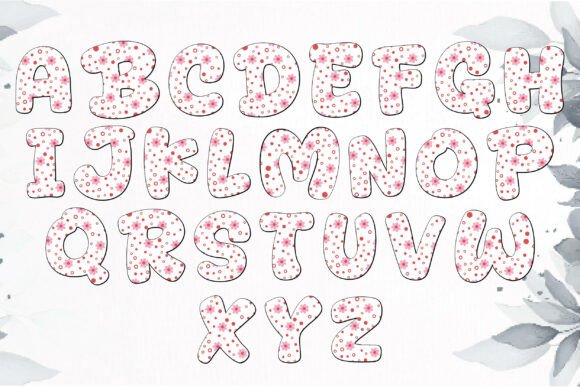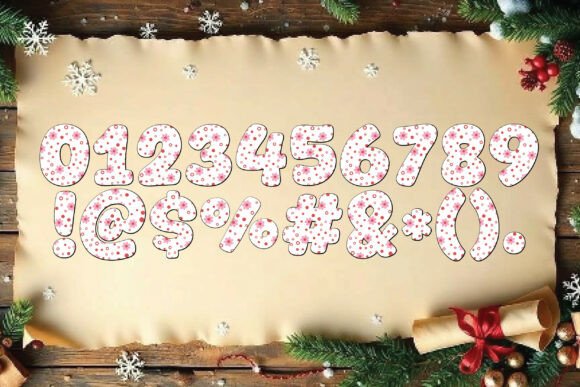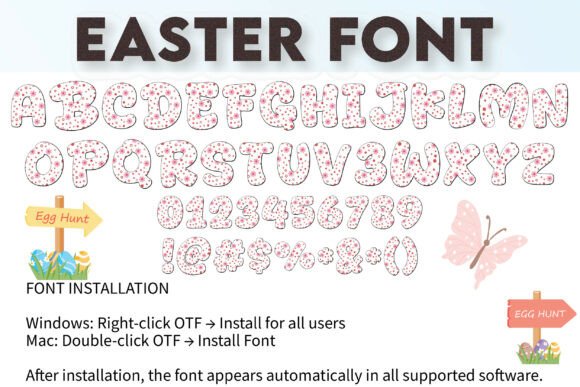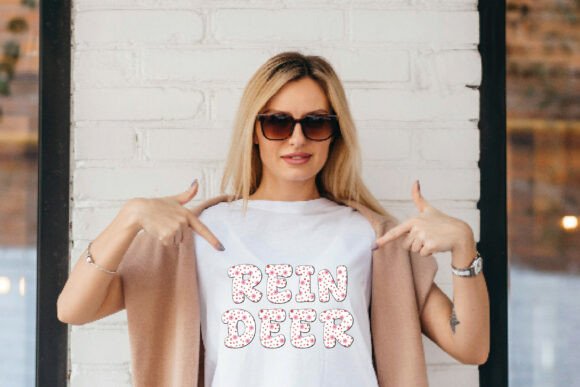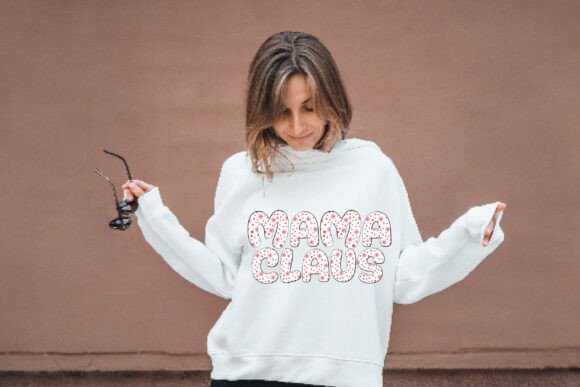
Hop into Spring with Easter Font: A Fun and Festive Alphabet
Ah, Easter – a time of renewal, colorful eggs, and adorable bunnies. As designers, crafters, and creative hobbyists, we’re always on the lookout for the perfect font to bring our seasonal projects to life. I still remember the time I was working on an Easter-themed invitation for a client, and I just couldn’t find the right font to match the playful and cheerful vibe. That’s when I stumbled upon the Easter Font, and it instantly became my go-to for all things spring and Easter.
So, what makes the Easter Font so special? Here are a few things that I absolutely adore:
- ✨ Cute and friendly letter style: The Easter Font is designed to be playful and fun, making it perfect for Easter celebrations, kids’ designs, and colorful spring creations.
- 🎨 Colorful and vibrant: When used in supported design software, the Easter Font displays in full color, adding an extra pop of fun to your designs.
- ⚠️ Font preview limitations: The font preview may appear black and white, but trust me, it’s a colorful beauty when used in your designs.
The Story Behind Easter Font
The Easter Font was designed with one goal in mind: to bring a fun and festive touch to your spring and Easter designs. Inspired by the colorful world of Easter eggs, bunnies, and spring flowers, this font is the perfect addition to any creative project. Whether you’re a designer, crafter, or hobbyist, the Easter Font is sure to bring a smile to your face and a pop of color to your designs.
| Q: Is the Easter Font suitable for kids’ projects? | A: Absolutely! The Easter Font is designed to be fun and playful, making it perfect for kids’ designs, party invitations, and educational materials. |